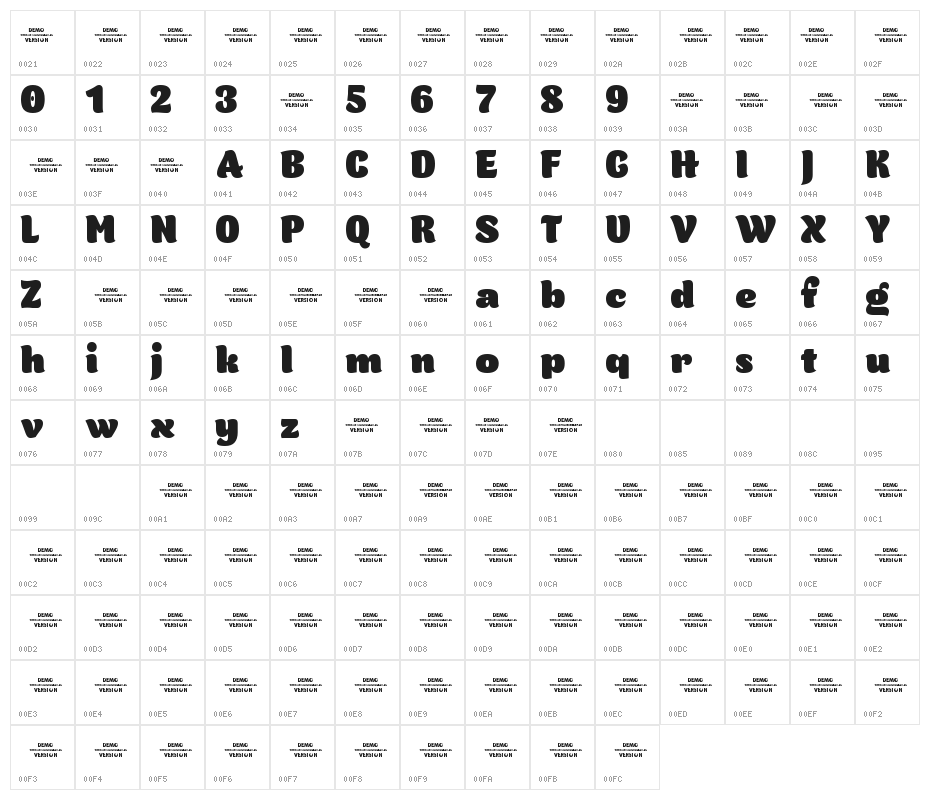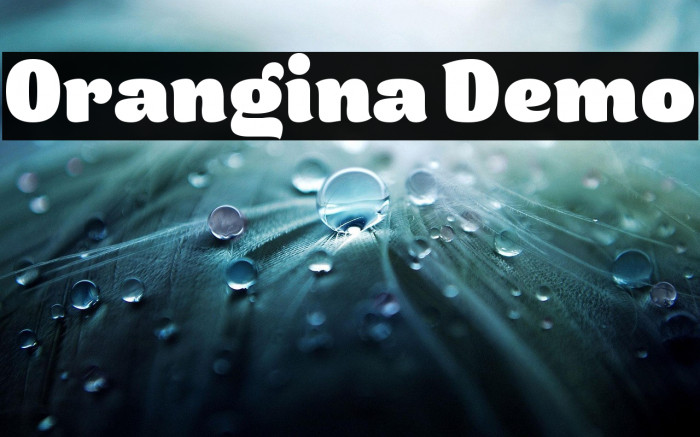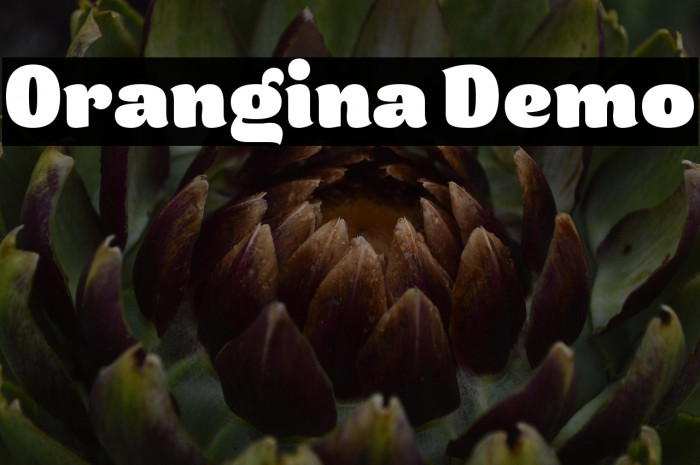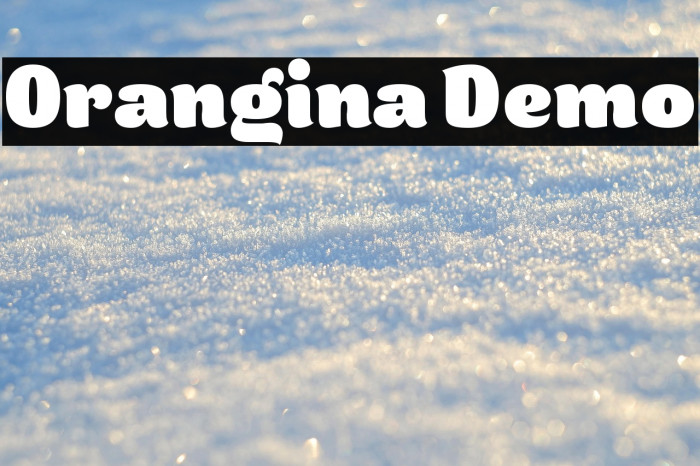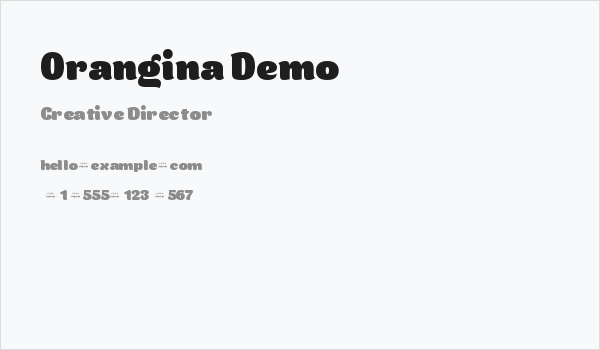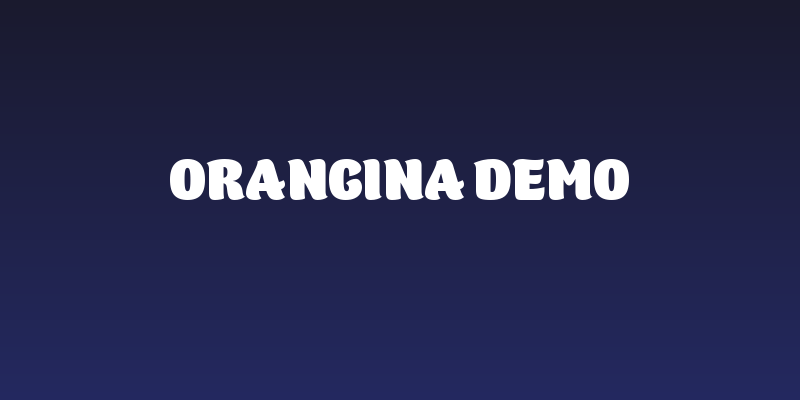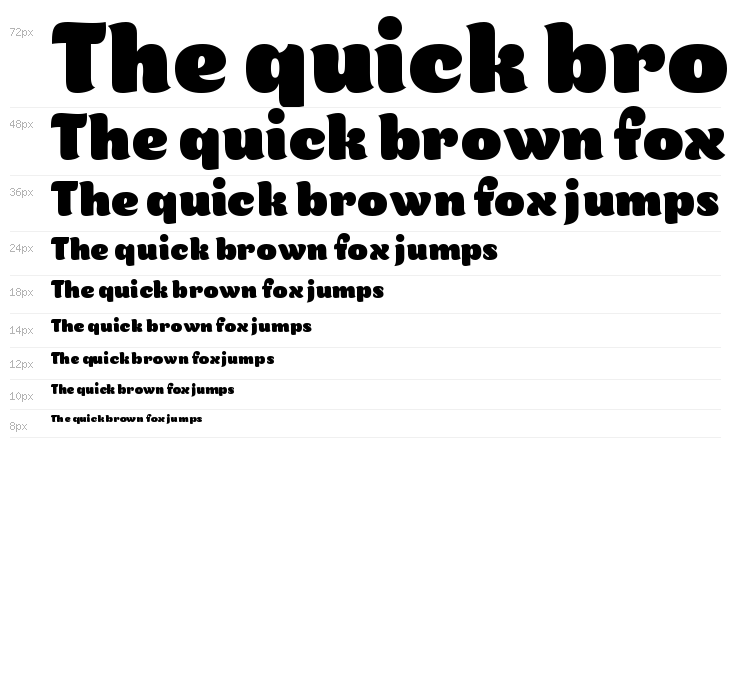
Orangina Demo Font
Orangina Demo Description
This font features a bold and playful design with thick, rounded strokes that give it a friendly and approachable appearance. The characters are well-defined with a consistent weight throughout, creating a cohesive look. The uppercase and lowercase letters maintain a uniform style, while the numerals are equally bold and rounded. The font's overall aesthetic is reminiscent of retro or vintage styles, making it suitable for projects that require a touch of nostalgia. Its distinct and eye-catching design makes it ideal for headlines, posters, and branding materials where a strong visual impact is desired.
| Overall Style | Retro, Playful |
| Use Case | Headlines, Posters, Branding |
| Proposed Projects | Ideal for use in headlines, posters, branding, and any project requiring a bold, retro look. |